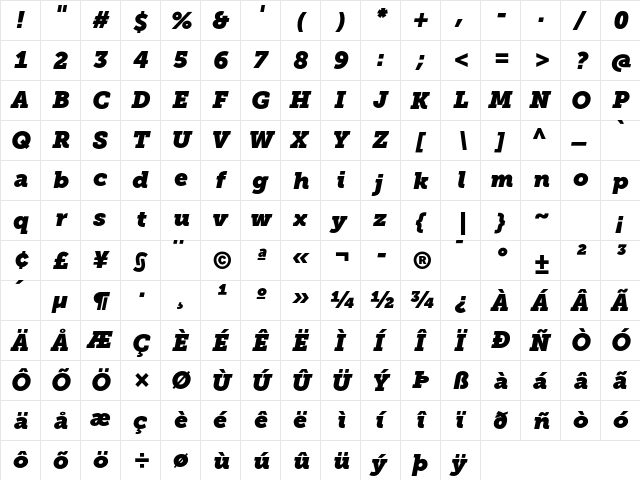
Museo Slab 1000 Italic
| Foundry | Jos Buivenga |
| Designer | Jos Buivenga |
Design Context for Museo Slab Typeface
Museo Slab combines the readability of serif typography with the visual weight of a slab construction, resulting in a typeface that feels both authoritative and approachable. Its italic angle brings a sense of urgency and motion to the letterforms.
Suited to magazines, political campaign materials, bold packaging, and any setting where authority matters.
Pro Tip: Use Museo Slab for headlines and subheadings where its slab serifs can make an impression. It also holds up well in mid-size body copy thanks to its sturdy construction.